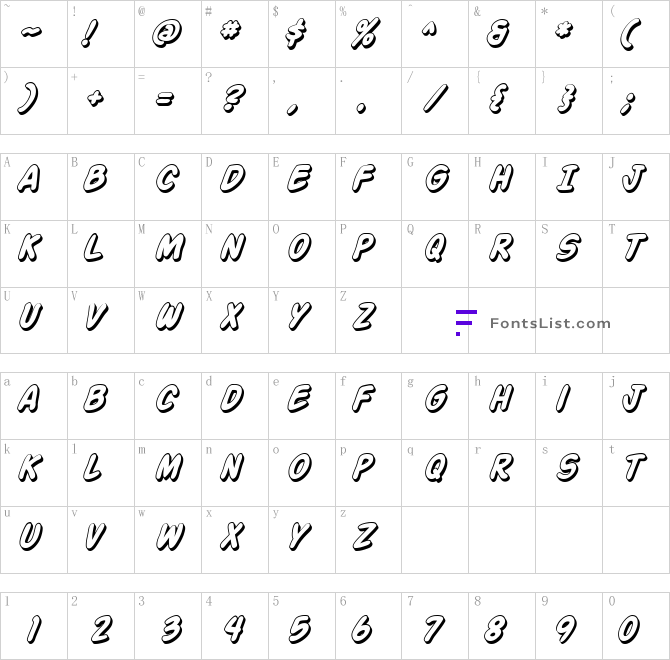
- Font Name:Action Man Shaded
Action-Man-Shaded-Italic.ttf is a very beautiful artistic font, Action-Man-Shaded-Italic.ttf is widely used in the design and printing of various books and pictures,Action-Man-Shaded-Italic.ttf has a strong visual impact,Action-Man-Shaded-Italic.ttf is a commonly used font in newspapers, magazines and books, and is used in posters, e-commerce Poster design, store design, logo design, font design and other fields.Action-Man-Shaded-Italic.